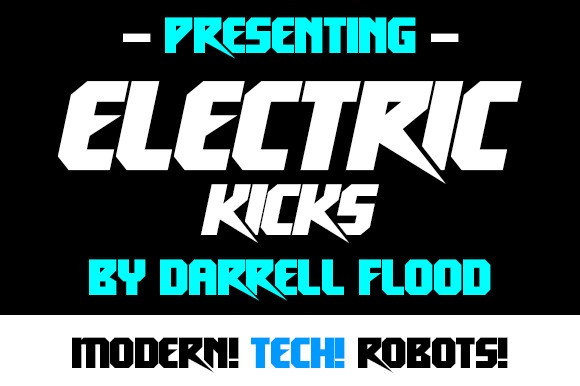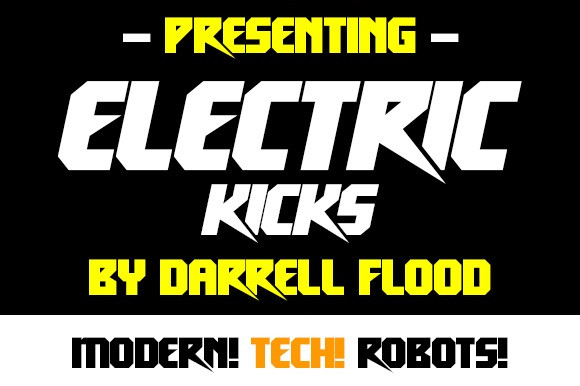
Electric Kicks Font
Electric Kicks Display Font – A modern sci-fi font in a spiky, energetic style. Perfect for alien encounters, high tech themes and general edgy use!